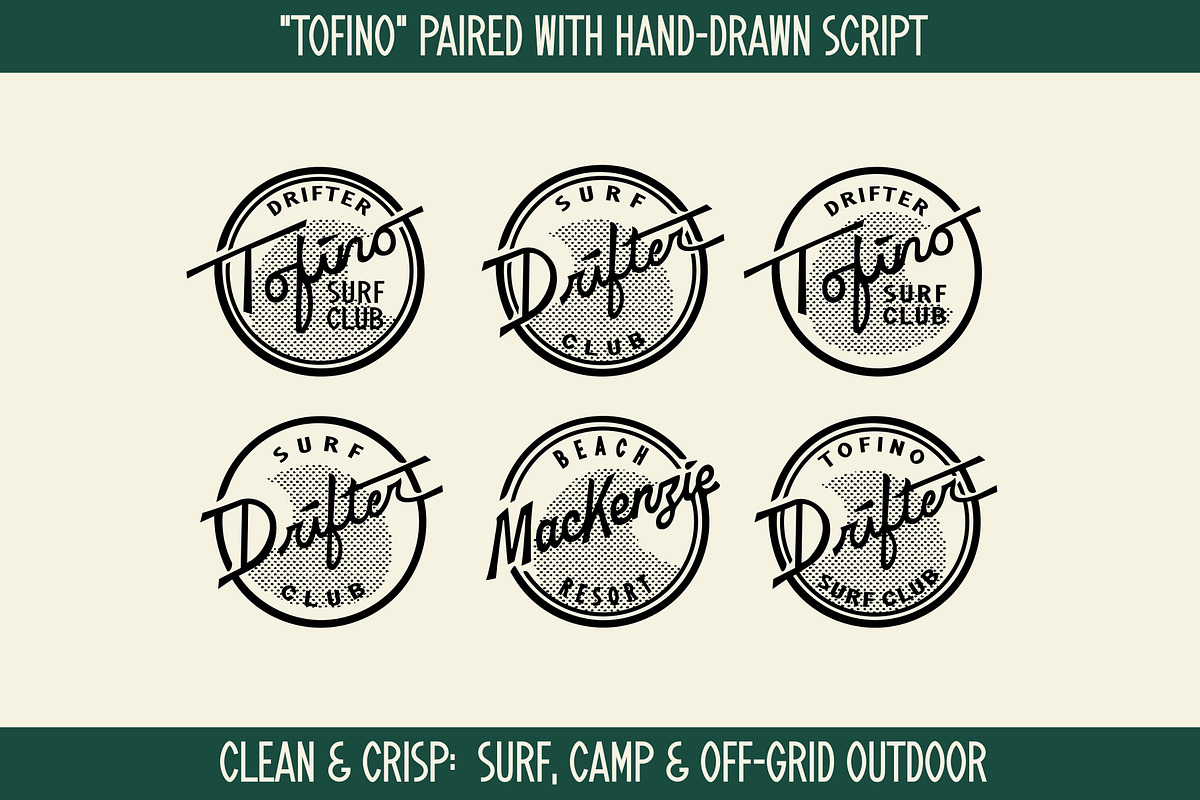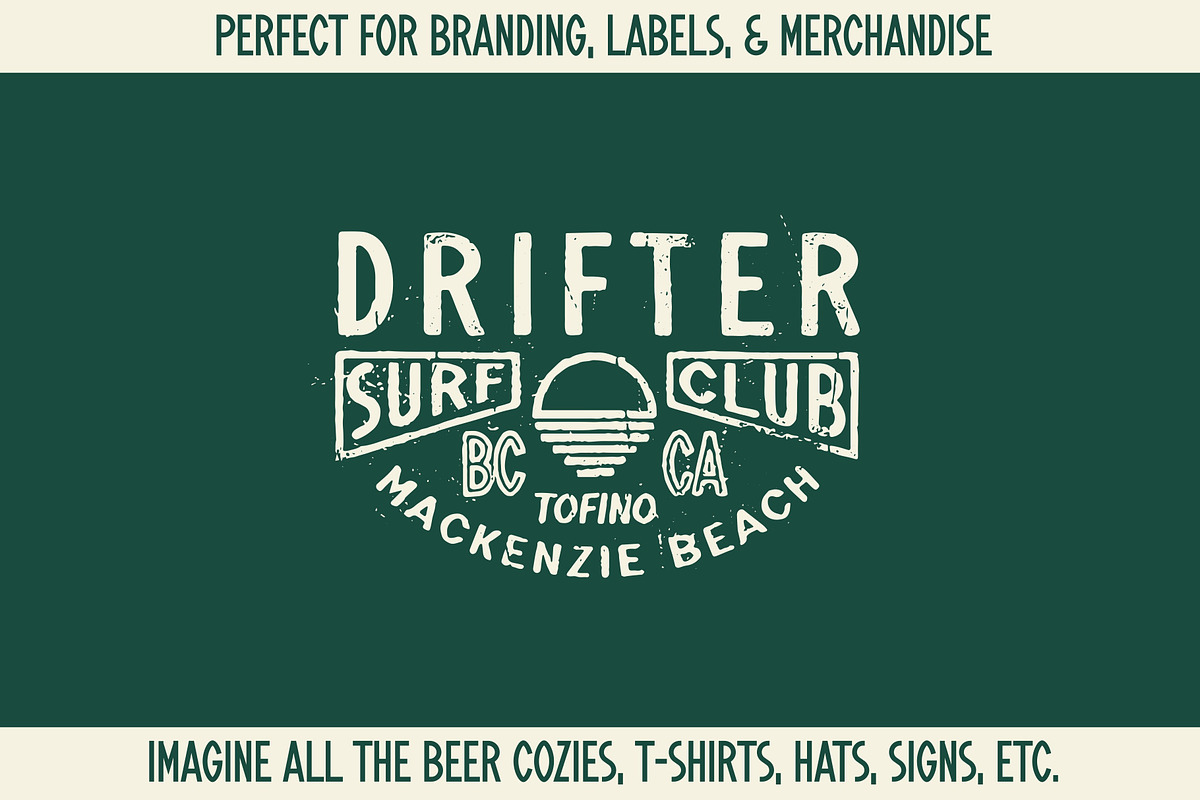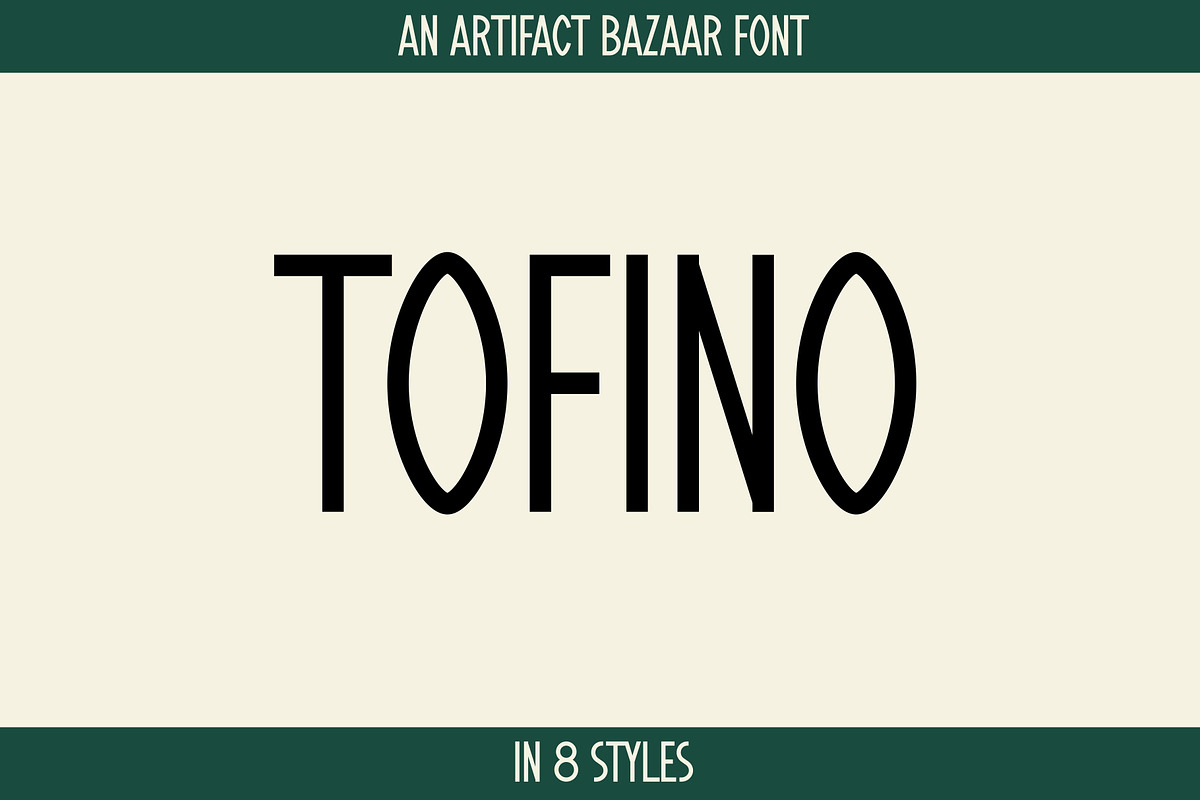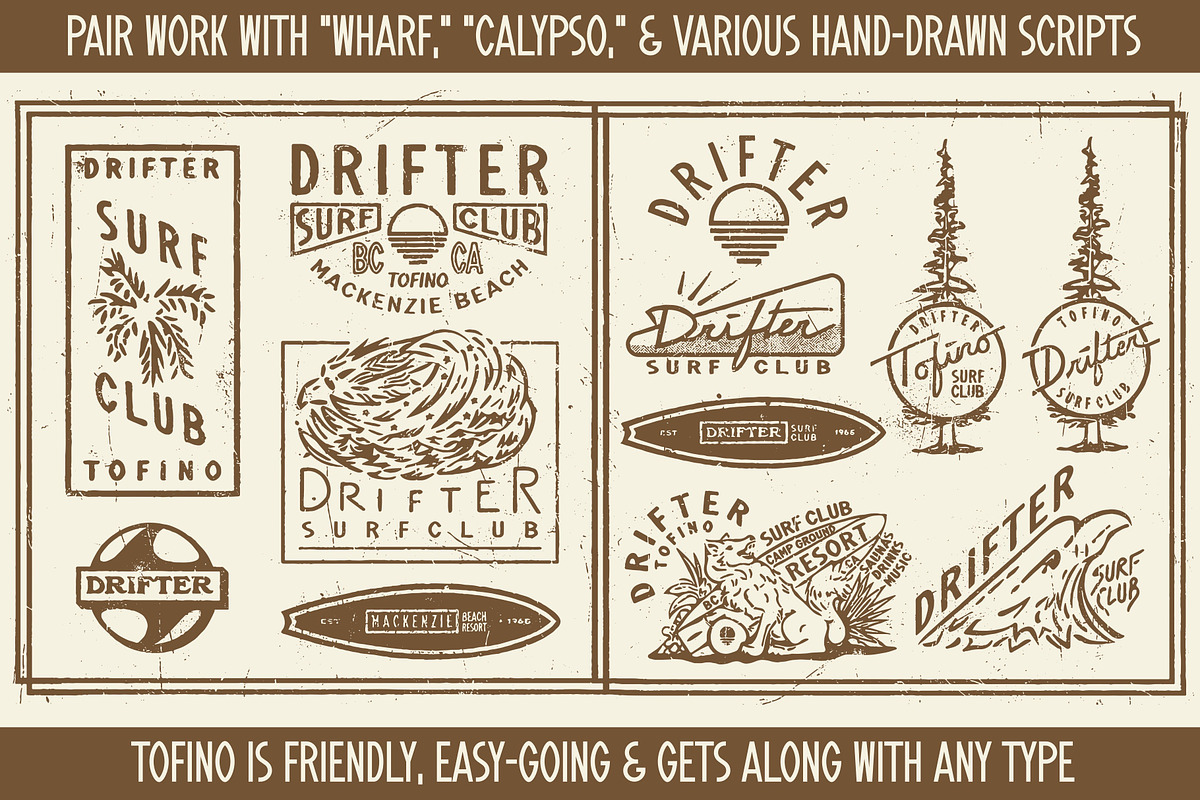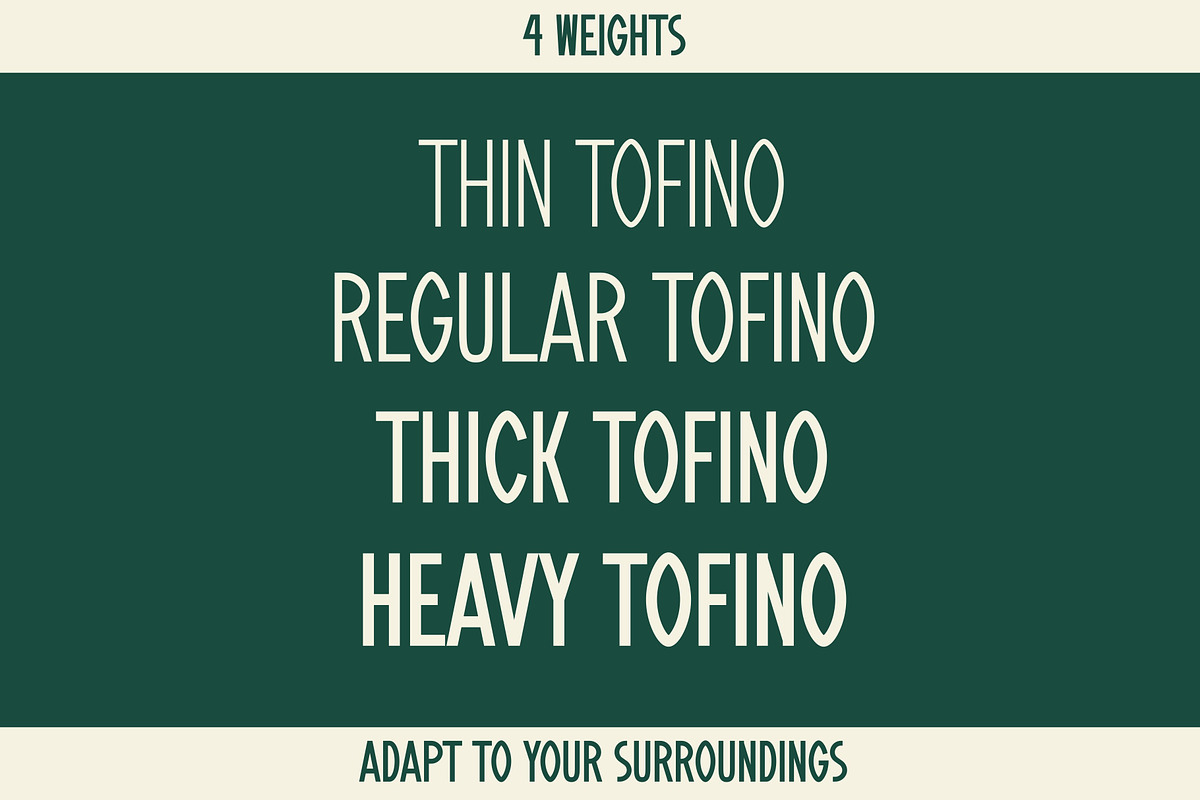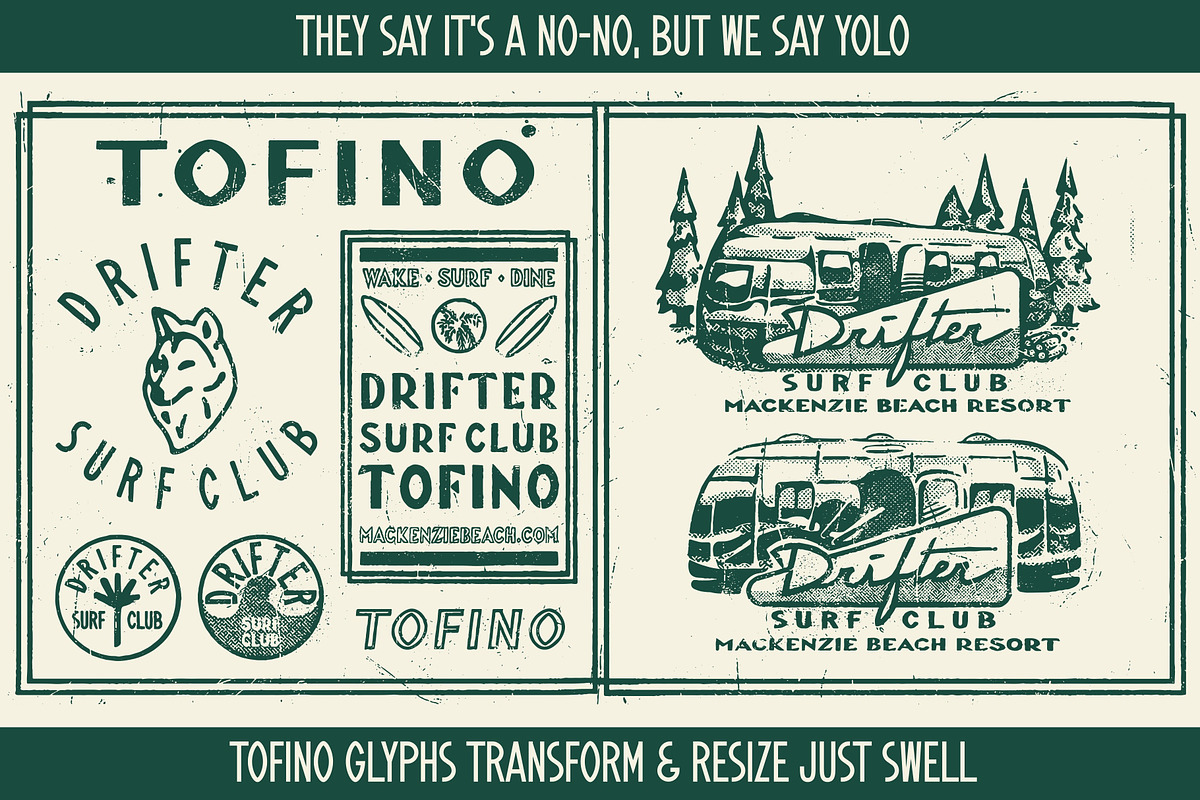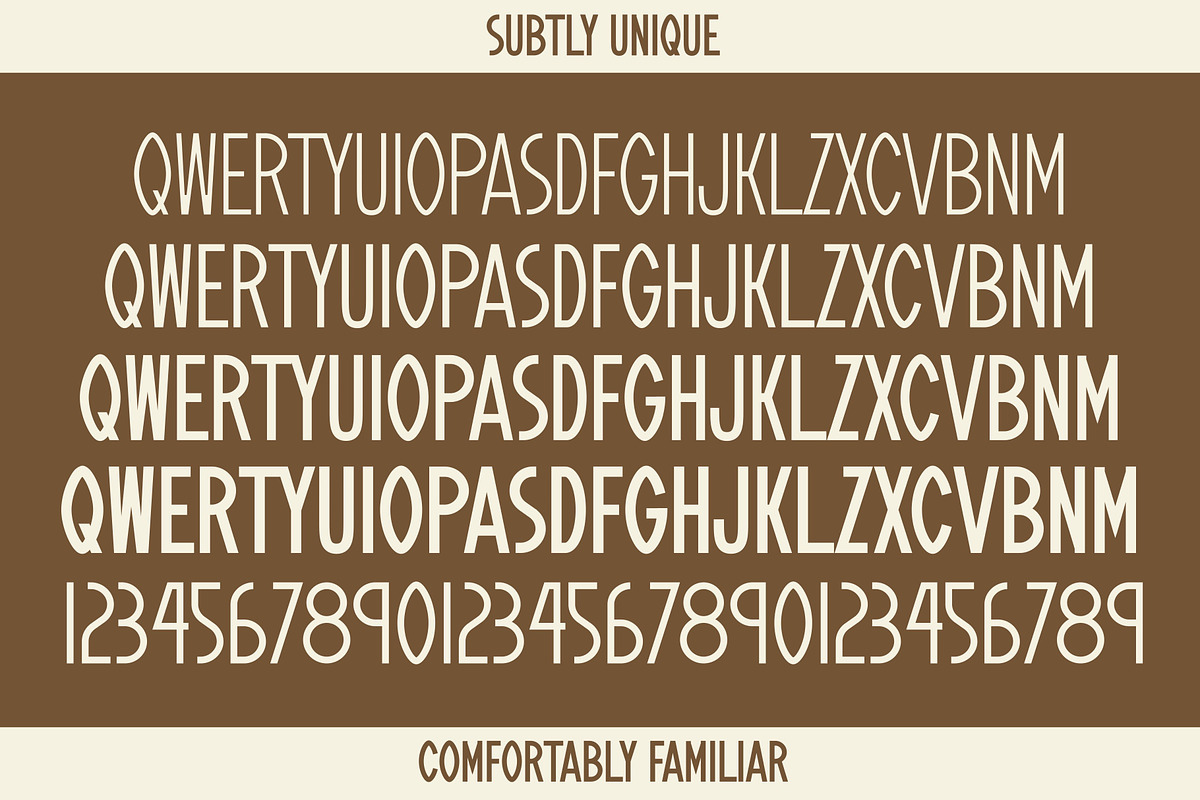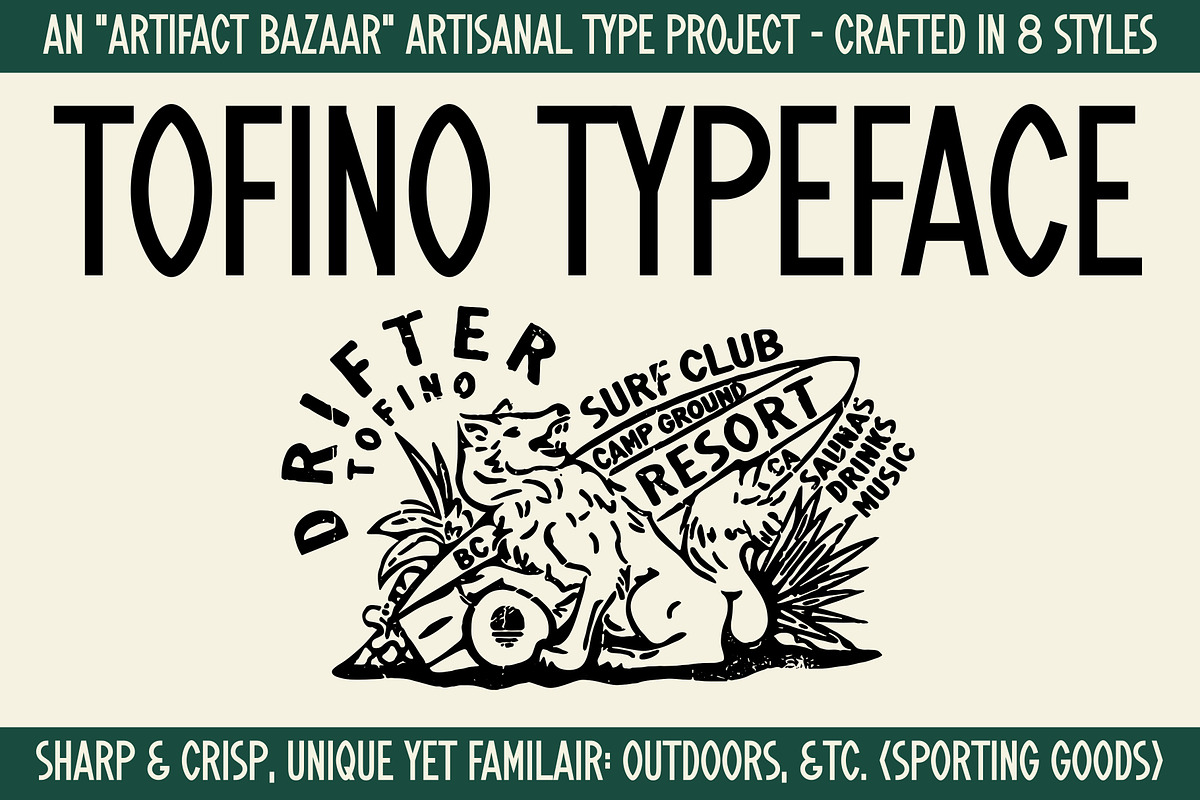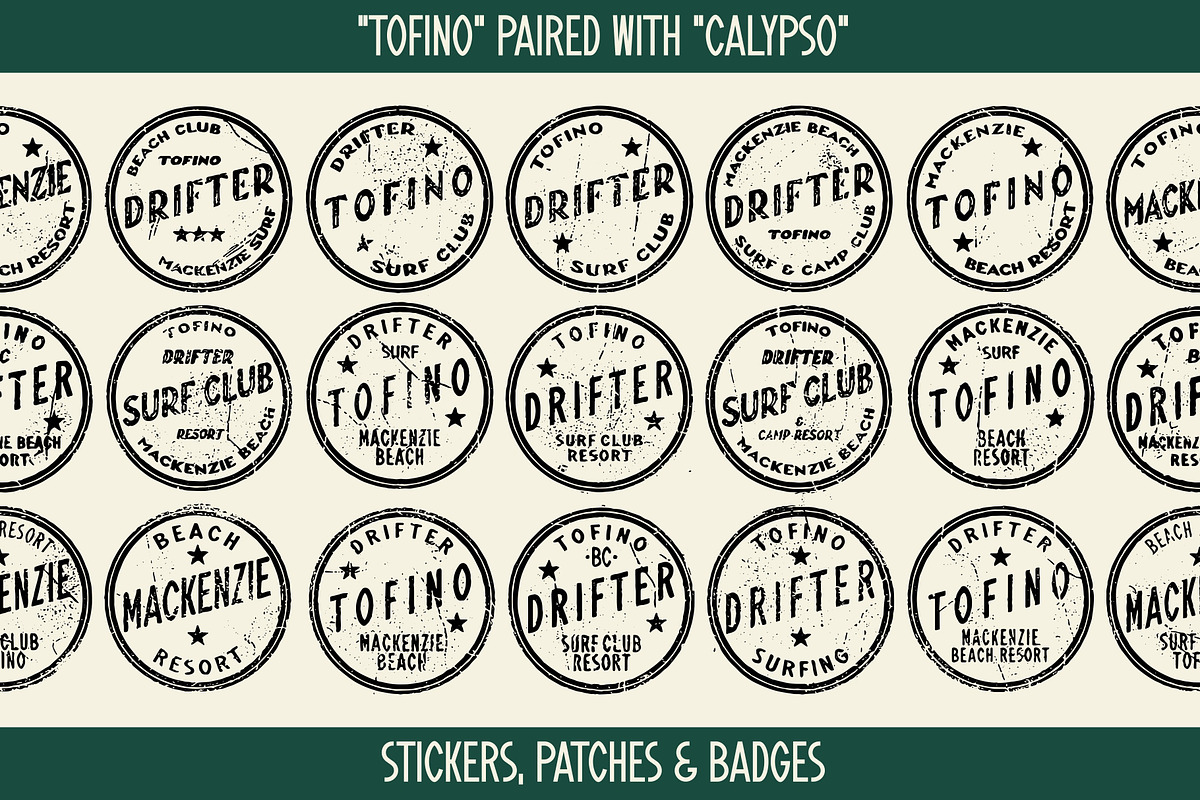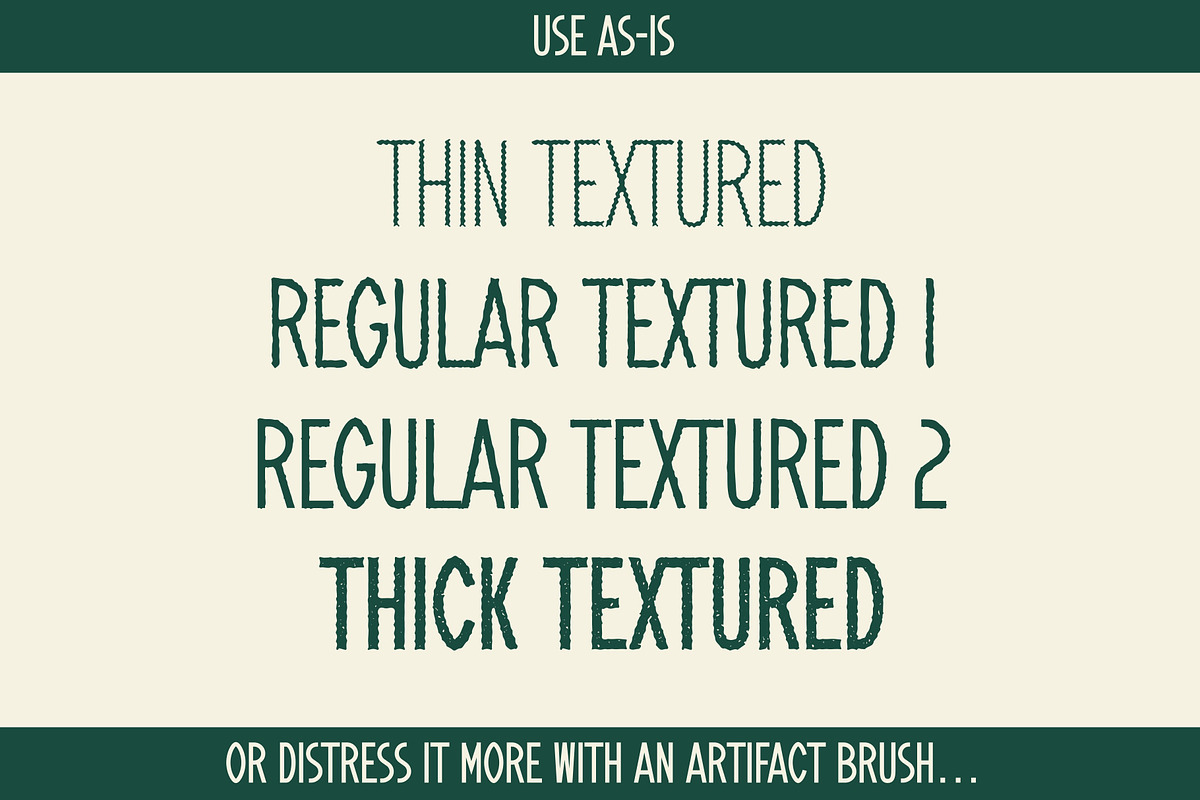
Tofino | Surf Sans
The surfboard “O” is one of the standout and most mentioned features of TOFINO, a Season 2 font project in 8 styles, with multiple pre-textured options and finely tuned kerning. Clean and crisp, purely original yet comfortably familiar, it fits perfectly with: outdoor off-grid lifestyle, lake and cabin journey, forest and mountain excursions, open-air culinary, wilderness discovery, trekking and camping gear, sporting goods and apparel, and any other adventurous vibe the clients might throw at you to create.
A Season 2 Font
Artisan Made
All numbers, punctuation, special characters
8 Styles
Thin
Thick
Heavy
Thin (Textured)
Regular (Textured 1)
Regular (Textured 2)
Thick (Textured)